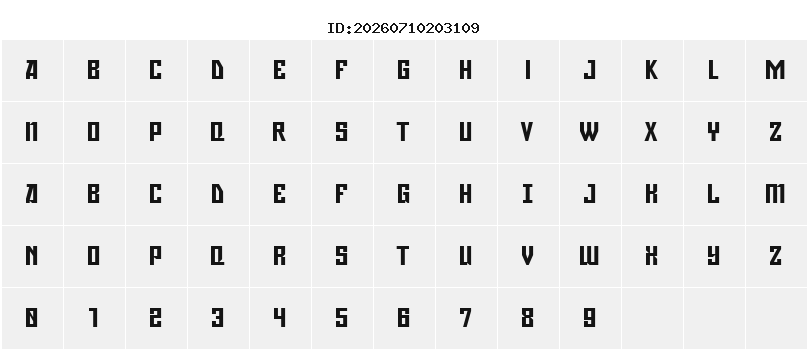
• Font Name: Gagarin
• Full Font Name: Gagarin
• Character Count: 99
About Gagarin.ttf
Gagarin.ttf is a modern, elegant sans-serif font designed for ultimate readability and visual harmony. Perfect for branding, headlines, web design, and print materials.